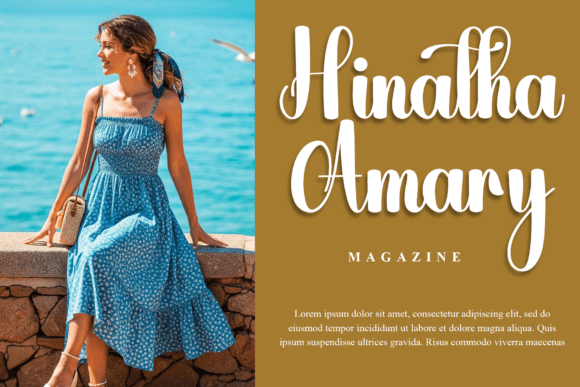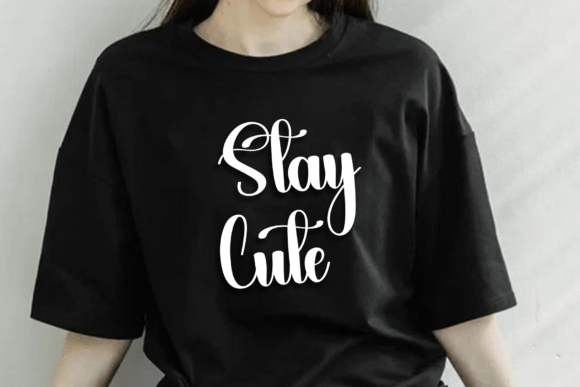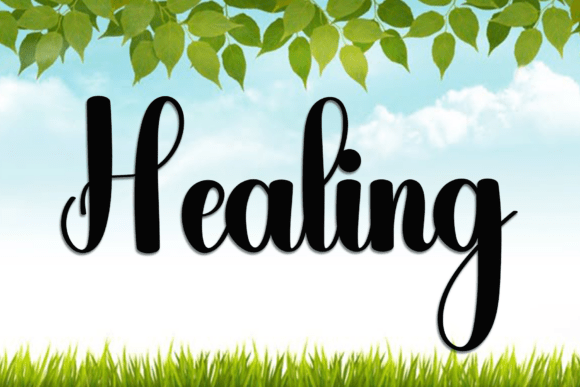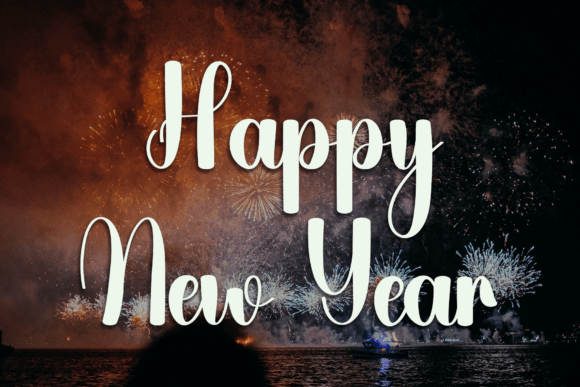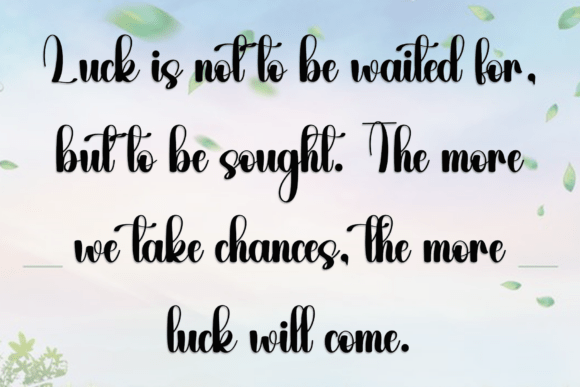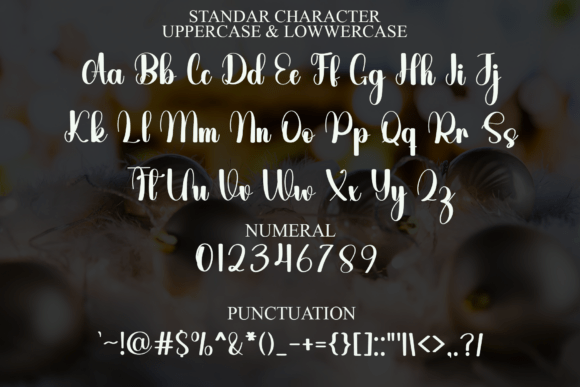
Santa Ballpoint Font – Free Download
Introduction to Santa Ballpoint Font
Santa Ballpoint is a casual and creative font that exudes warmth and friendliness.
Key Features of Santa Ballpoint Font
Why Choose Santa Ballpoint Font?